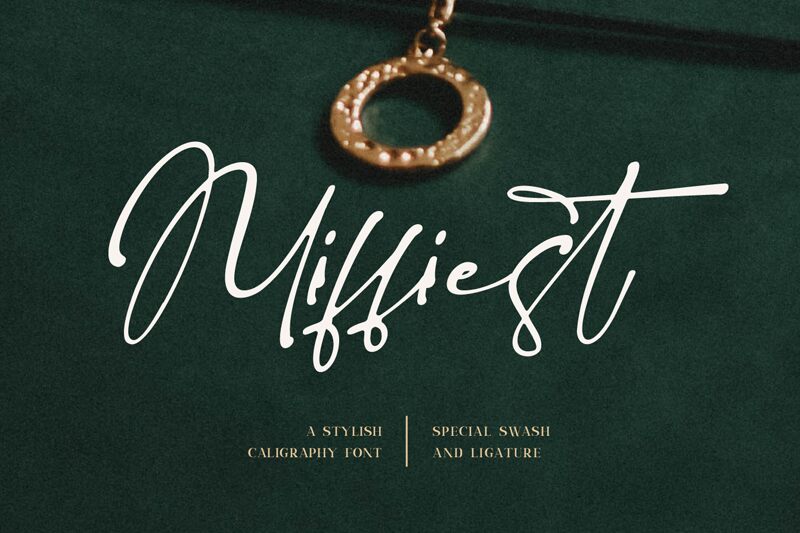
Miffiest is a signature font designed by Farida Kurniawan with a light weight. It's perfect for adding a unique, personal touch to logos, invitations and quotes. It will also work beautifully for t-shirt designs and other creative projects!